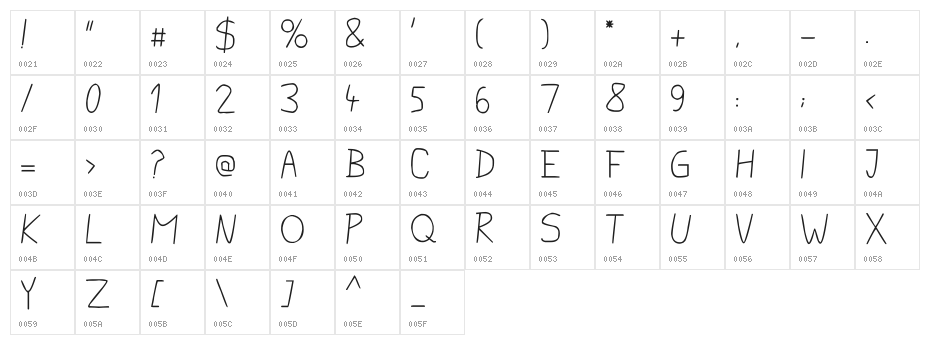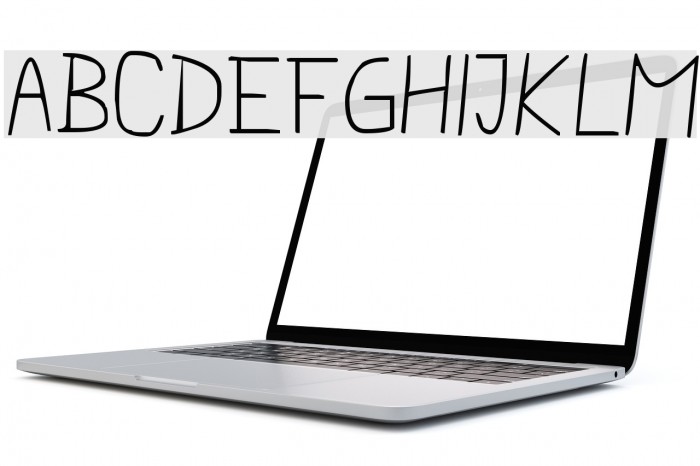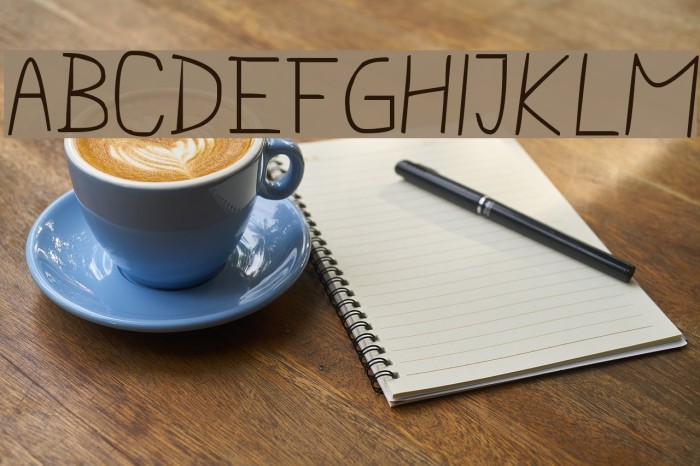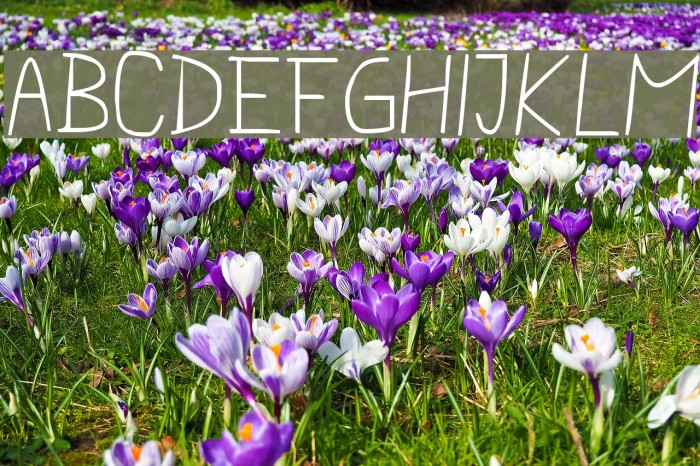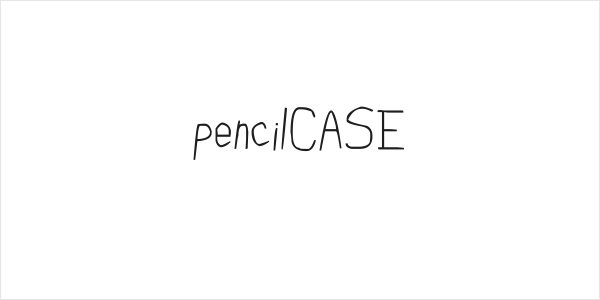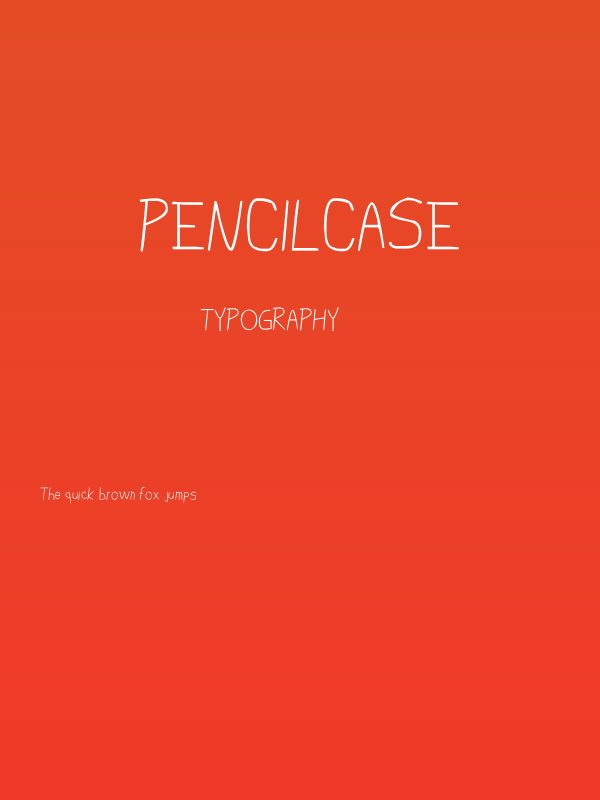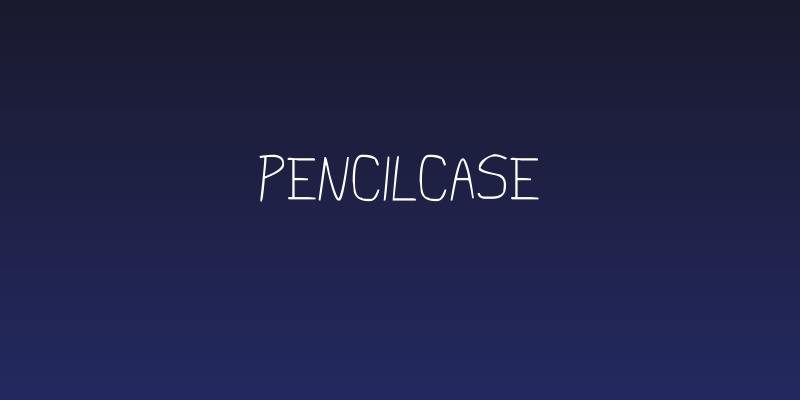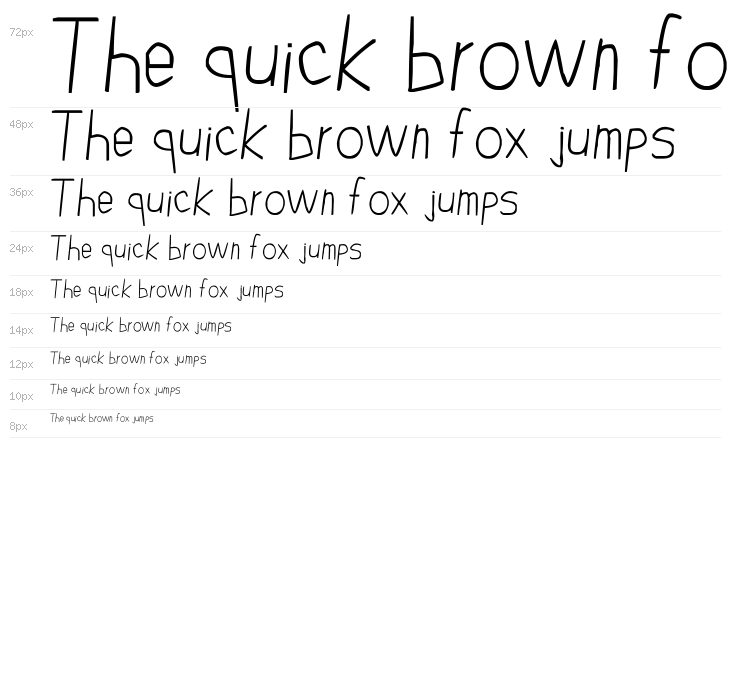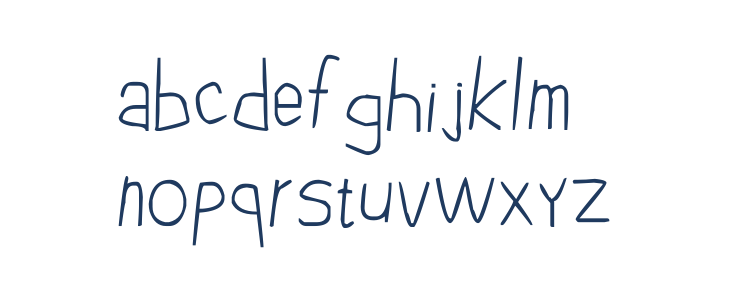
pencilCASE Font
pencilCASE Description
This font features a playful and casual handwritten style, characterized by its uneven strokes and slightly tilted letters. The uppercase and lowercase letters maintain a consistent height, giving it a cohesive appearance. The numbers and special characters follow the same informal aesthetic, making it suitable for creative and informal projects. The font's design is reminiscent of handwriting with a marker or pen, adding a personal touch to any text. Its legibility is maintained despite the quirky style, making it versatile for various uses.